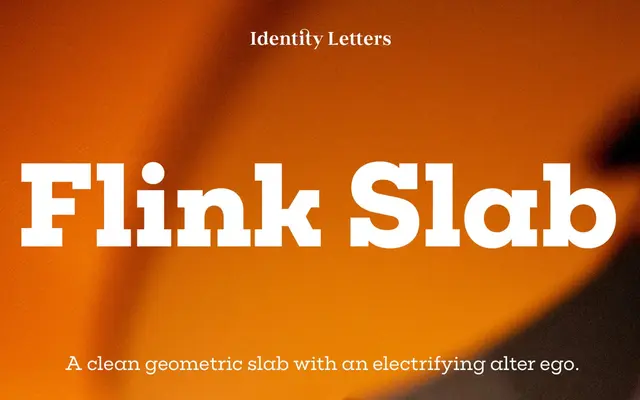
Flink Slab
A geometric slab superfamily with unbracketed serifs, offered alongside an energetic 'Voltage' alternate set aimed at display use.
Built on the same skeleton and vertical metrics as the companion sans Flink Neue, Flink Slab spans nine weights from Thin to Black, each with an italic, totalling 36 fonts in the complete package. The Voltage sub-family provides alternate letterforms across all weights and italics, designed to push harder at display sizes. OpenType features include small capitals, oldstyle figures, double-storey 'a', triple-storey 'g' and a slashed zero, giving the family reasonable typographic depth.
Unbracketed slab serifs built on a geometric skeleton make this a clear geometric slab serif; the foundry explicitly describes it as a clean geometric superfamily with unbracketed slab serifs.